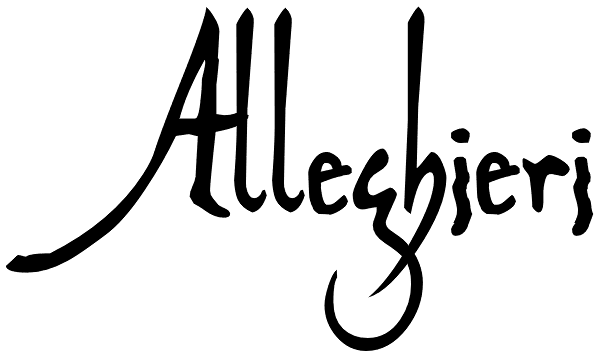
Alleghieri
Alleghieri was developed from several different examples of late Renaissance lettering. While it is based on a style which is clearly intended for quick, easy writing, we've preserved many of the unusual character forms and elaborations to give it a...